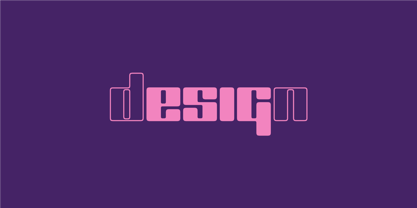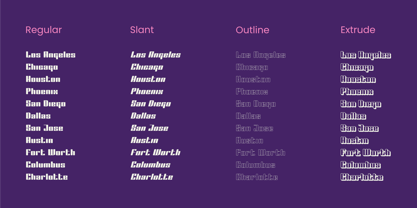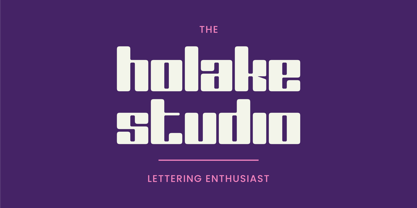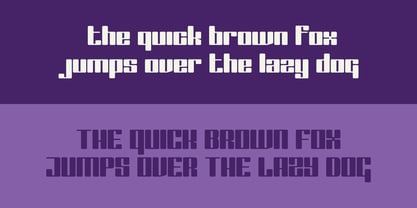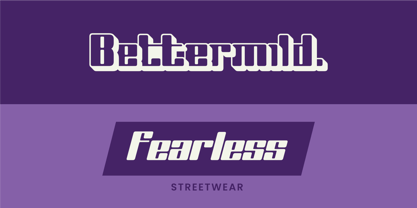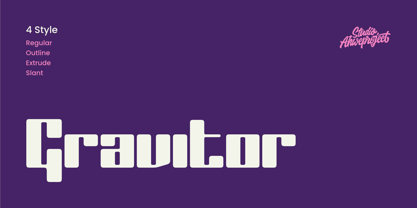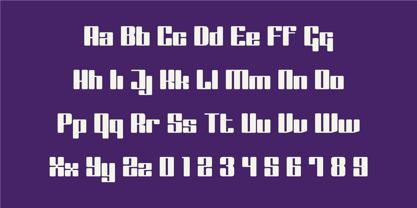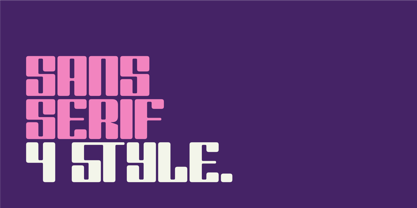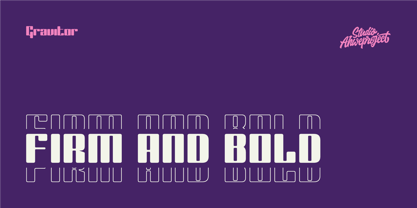
Gravitor
by ahweproject
The Gravitor Font Family was designed by Dida Ahluddin and published by ahweproject. Gravitor contains 4 styles and family package options.
Gravitor is a bold, geometric typeface with a futuristic and modern feel. Its design features blocky, squared letters with clean edges and smooth curves, giving it a striking yet approachable appearance. The font comes in four styles: Regular, Outline, Extrude, and Slant, offering versatility for different design needs. Its chunky and distinctive shape makes it ideal for titles, posters, logos, or other large-format text where strong visual impact is required. With its retro-tech aesthetic, “Gravitor” adds a bold and confident character to any design project.
Designers: Dida Ahluddin
Publisher: ahweproject
Foundry: ahweproject
Design Owner: ahweproject